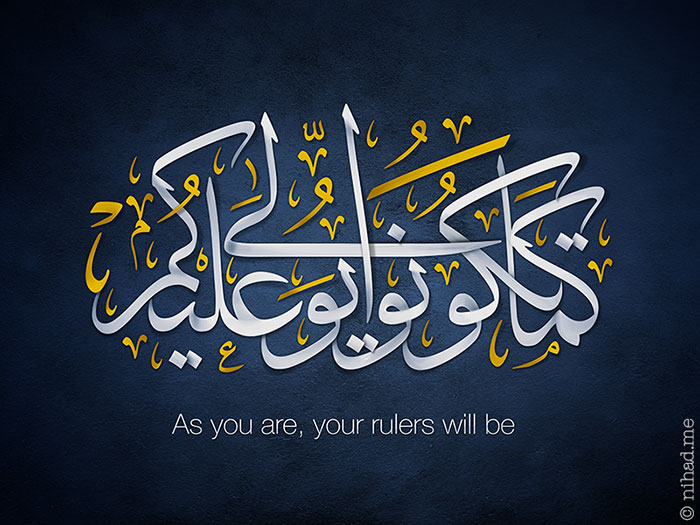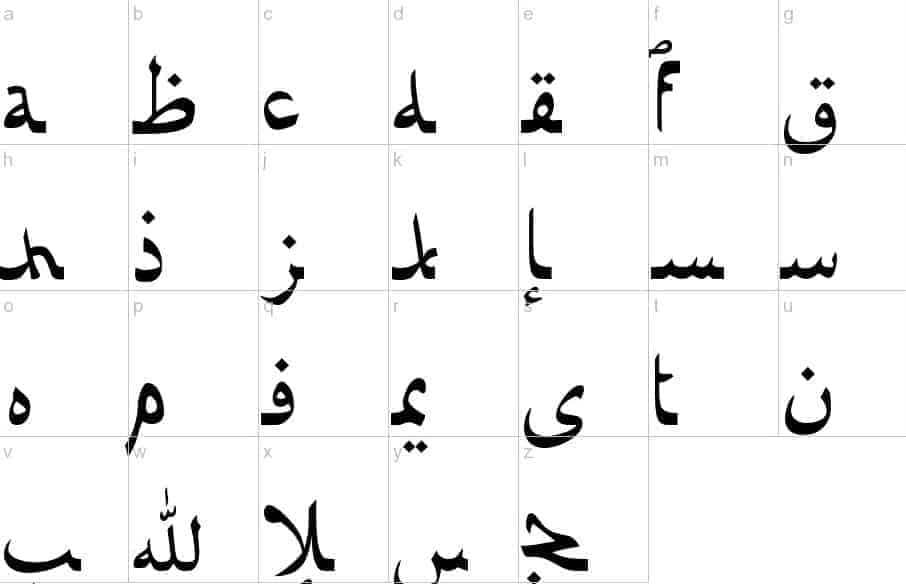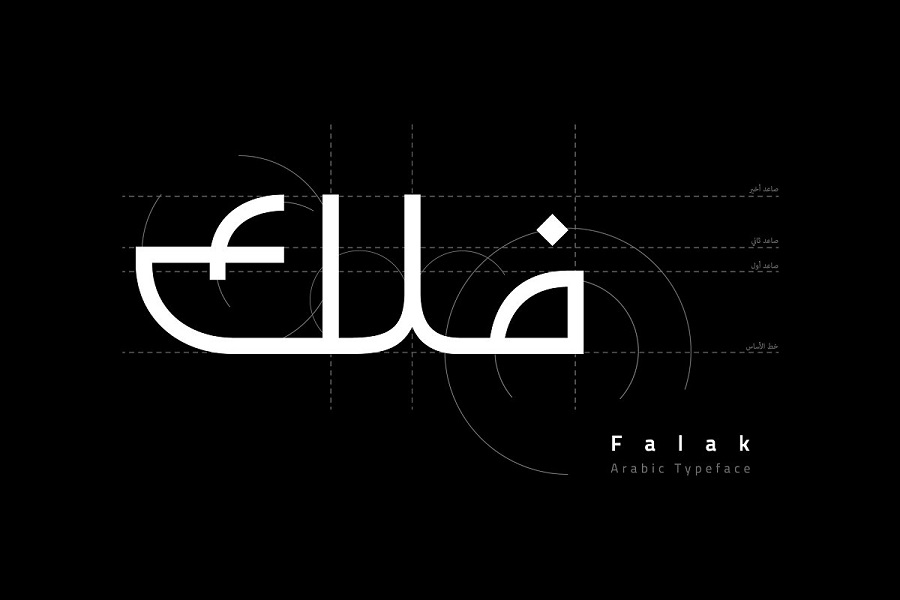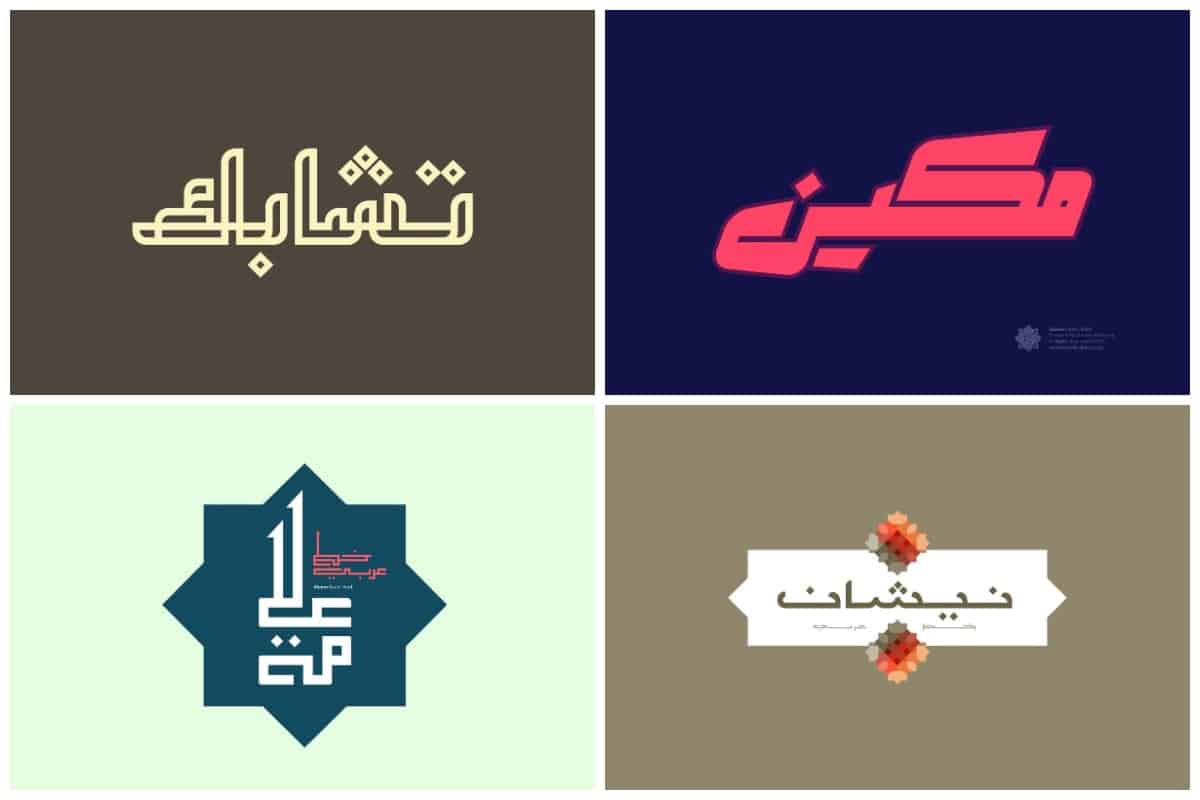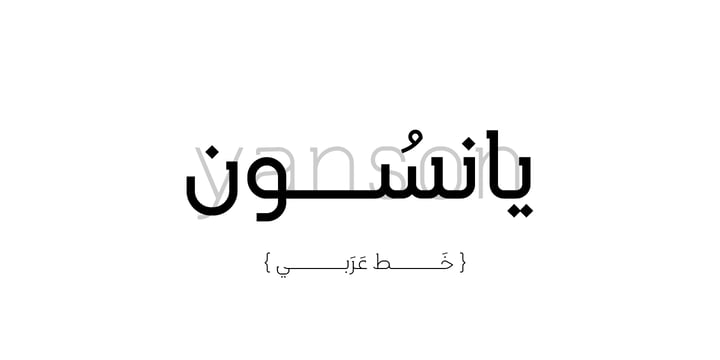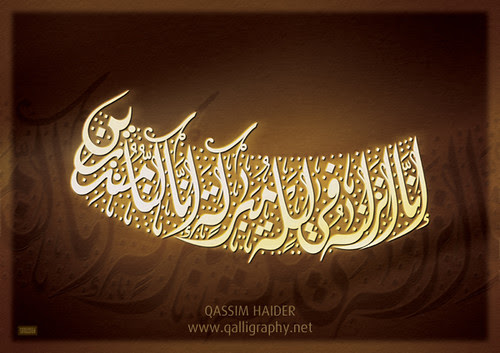
خط الديوان Diwan Font for photoshop creation. Clip Art Online Courses Names Arabic Calligraphy Generator.
Arabic calligraphy font generator. Use this image on websitesforumsblogs. Select an item to edit. Arabic Fonts 60 Fonts Available For Download Free And.
Font example is the Arabic script of John double click the view button to see more examples. Hipfonts is a design collective focused on promoting and showcasing typefaces created by independent creatives around the world. Calligraphy Font Generator 𝓬𝓸𝓹𝔂 𝖆𝖓𝖉 𝓹𝓪𝓼𝓽𝓮 Free Calligraphy is gotten from Greek signifying delightful composition.
Arabic Calligraphy Fonts 42 Free Ttf. If you want to use Arabic fonts online without downloading you can use our text generator below. Check our collection of fresh arabic calligraphy fonts.
To select your desired font click the radio button on the top corner the font box. Calligraphy Names Generator In Arabic was categorized under Quran Verses Symbol and published on Saturday May 4 2019. English In Arabic Calligraphy Fonts Lettering Alphabet Hand Lettering Fonts Wedding Fonts Calligraphy.
However either western calligraphy or Chinese or Arabic calligraphy they have strict rules and shapes with a geometrical order of lining on the page each character with a precise stroke order. 1 font style from 7900. If you choose to use a border the image will be resized to fit within it.
For different scripts for example Chinese or Arabic they have developed their own way of calligraphy. Find that right font that fits your projects can be like finding a needle in a haystack. Please choose a font for your art.
Arabic Calligraphy Names Generator Free. Each font shows a particular message a different meaning and takes design to a high level. Ready to personalize and share in Facebook and Twitter.
Jazayeri Kufic Qazvin by Arabetics. Arabic Calligraphy Names Generator Free. 15 Free Arabic Calligraphy Fonts.
21 Handwriting Font Arabic Free. Modern calligraphy font generator free text conversion online no watermark works for both Windows and Mac. Arabic calligraphy font generator.
Calligraphy fonts resemble elegant handwriting. Looking for calligraphy font generator you can download the font you like for free and then try it your self on your PC with Adobe Photoshop or Illustrator. The following tool will convert your text to images and you can use different Arabic fonts colors text effects.
Calligraphy Online Maker Cikimm Com. We provide you a preview of each arabic calligraphy font online. The page will load with the item taking up all of the available space.
If you are looking to use Arabic calligraphy for personal notes messages and letters go for Arabic font online generator handwritten fonts that come with a. Kaligrafi Pembuat Font Arab Tujuh Brilian Cara Untuk. Arabic Calligraphy Font Generator 𝓬𝓸𝓹𝔂 𝖆𝖓𝖉 𝓹𝓪𝓼𝓽𝓮.
We organize and curate fonts based on themes and categories. Nur Hidayah by Anomali Creative. Arabic Calligraphy Fonts 42 Free Ttf Photoshop Format Download Arabic Calligraphy Fonts Free Calligraphy Fonts.